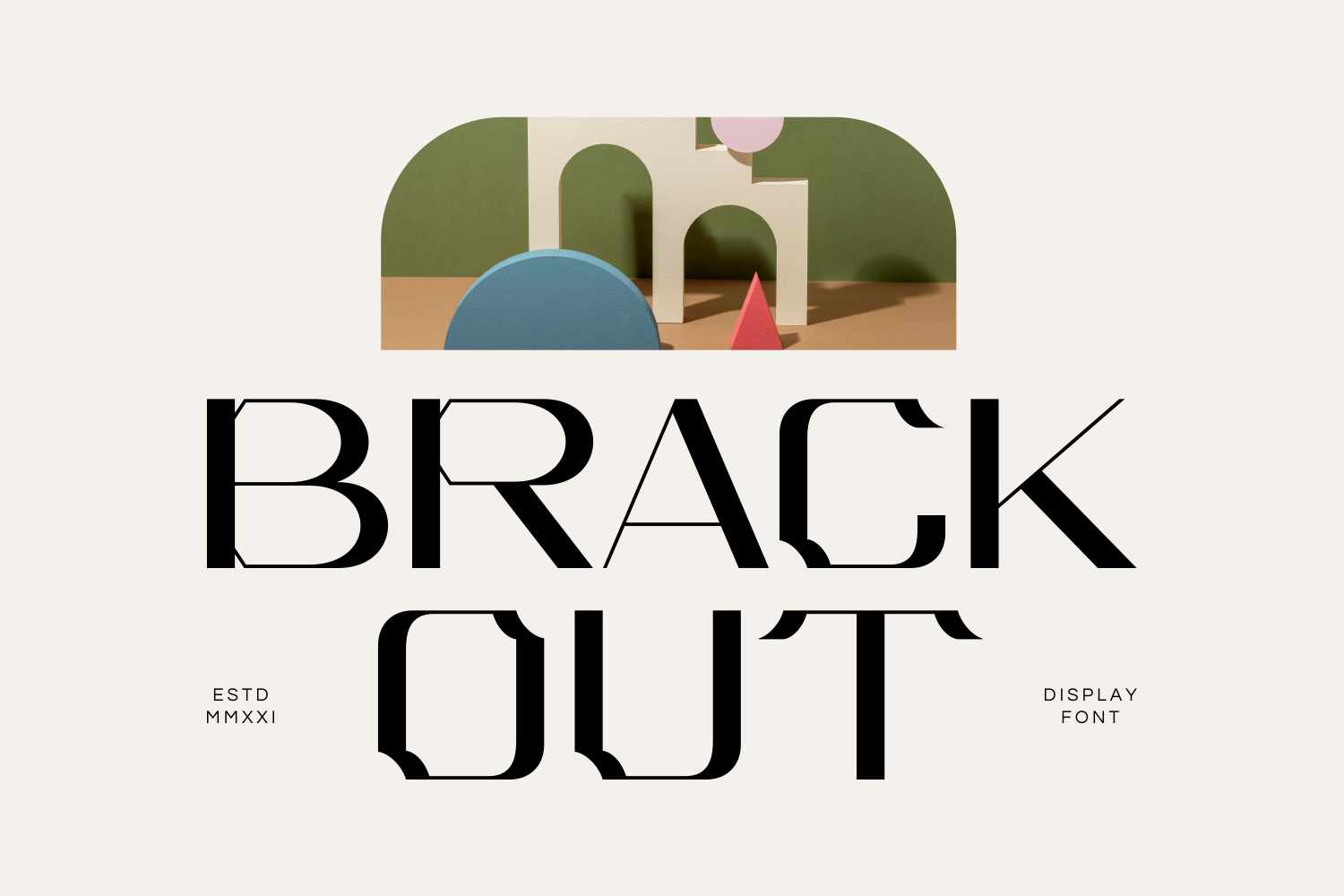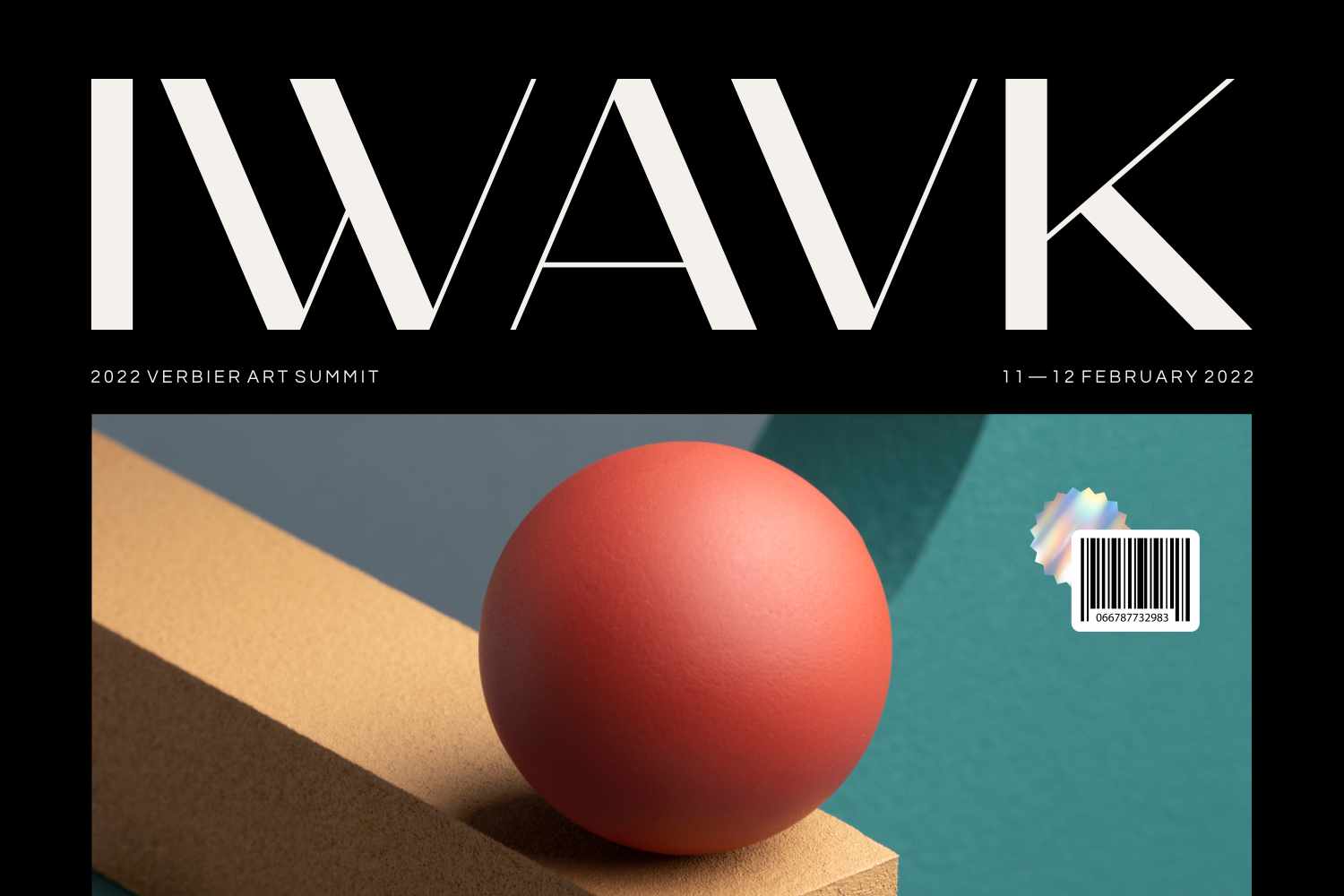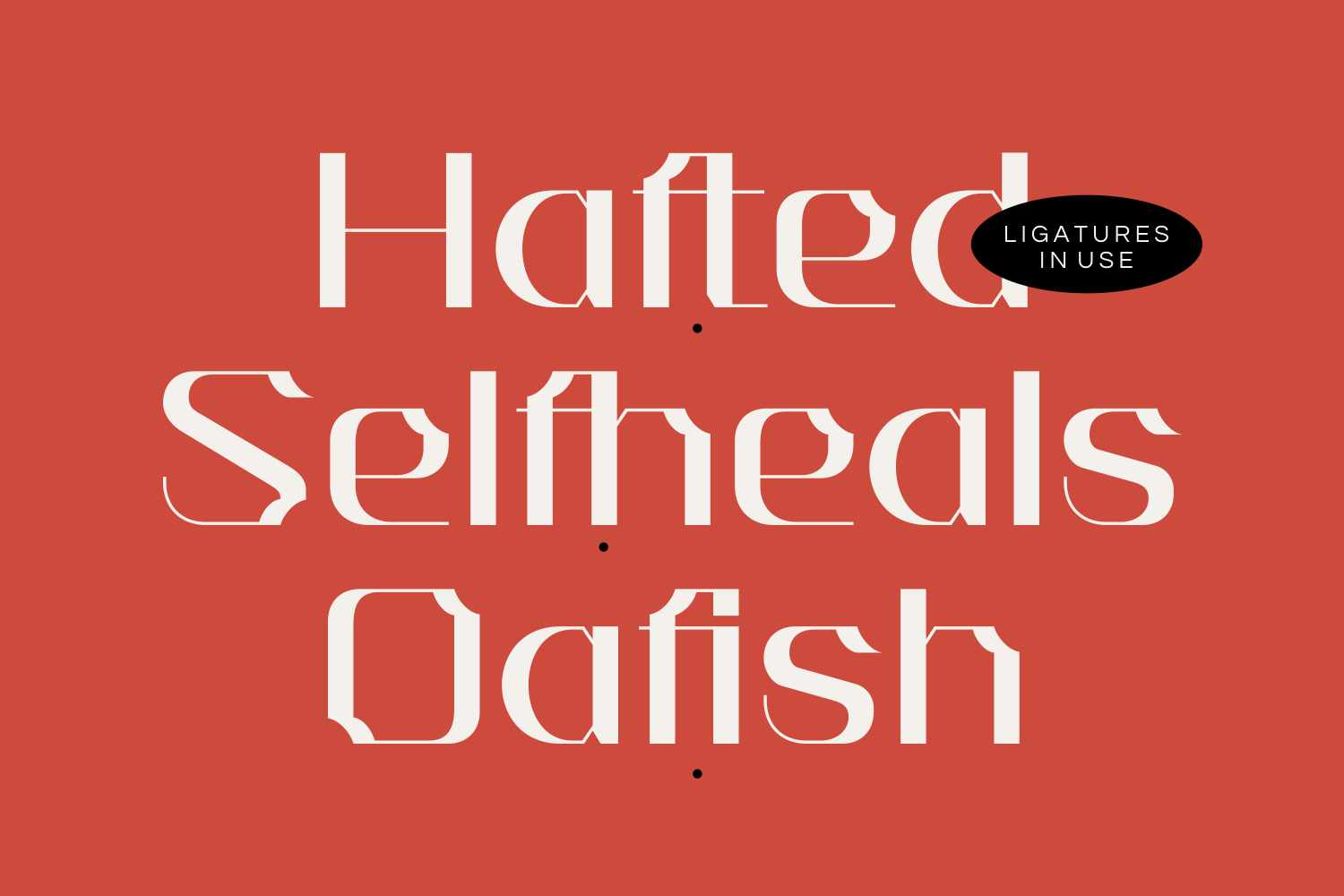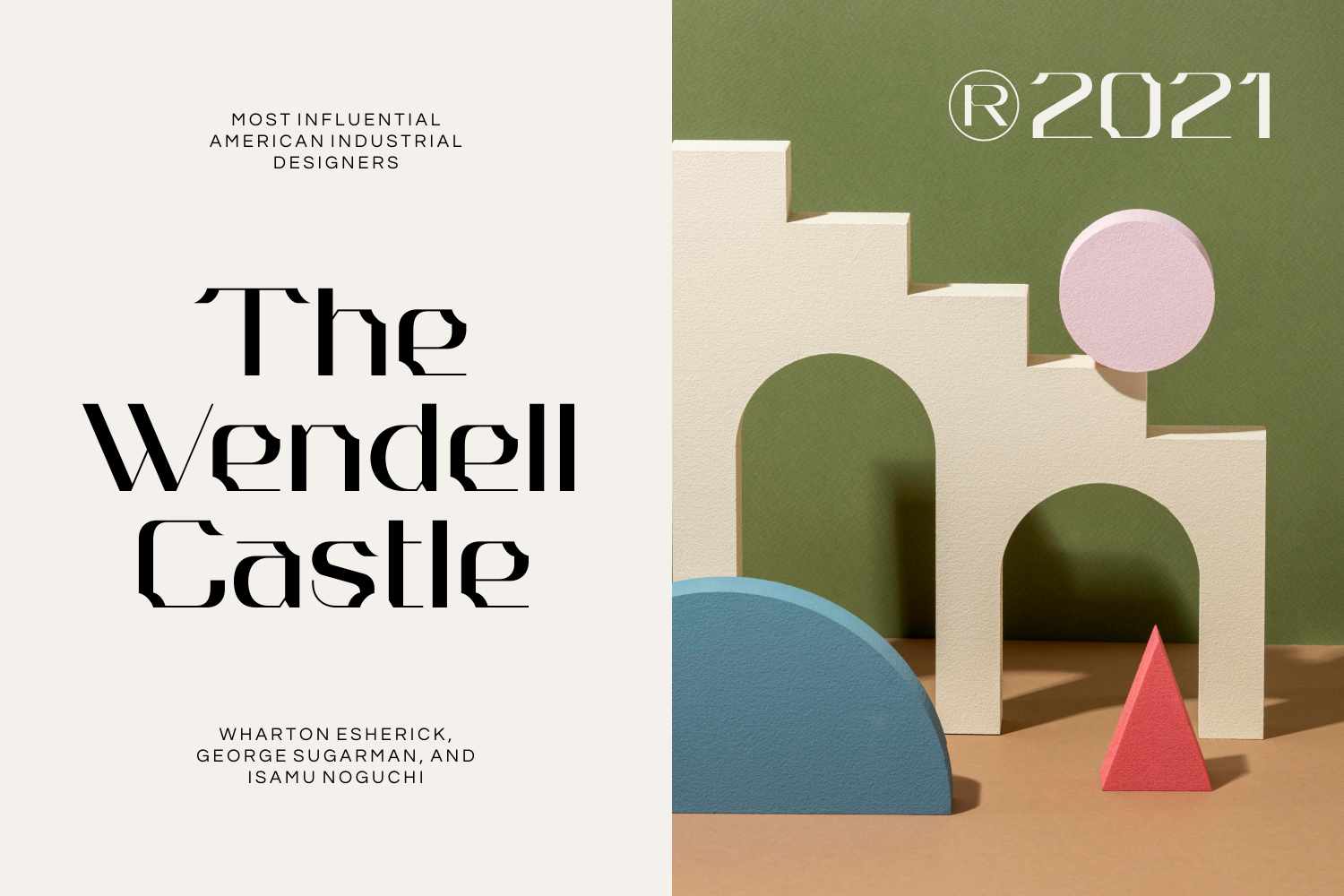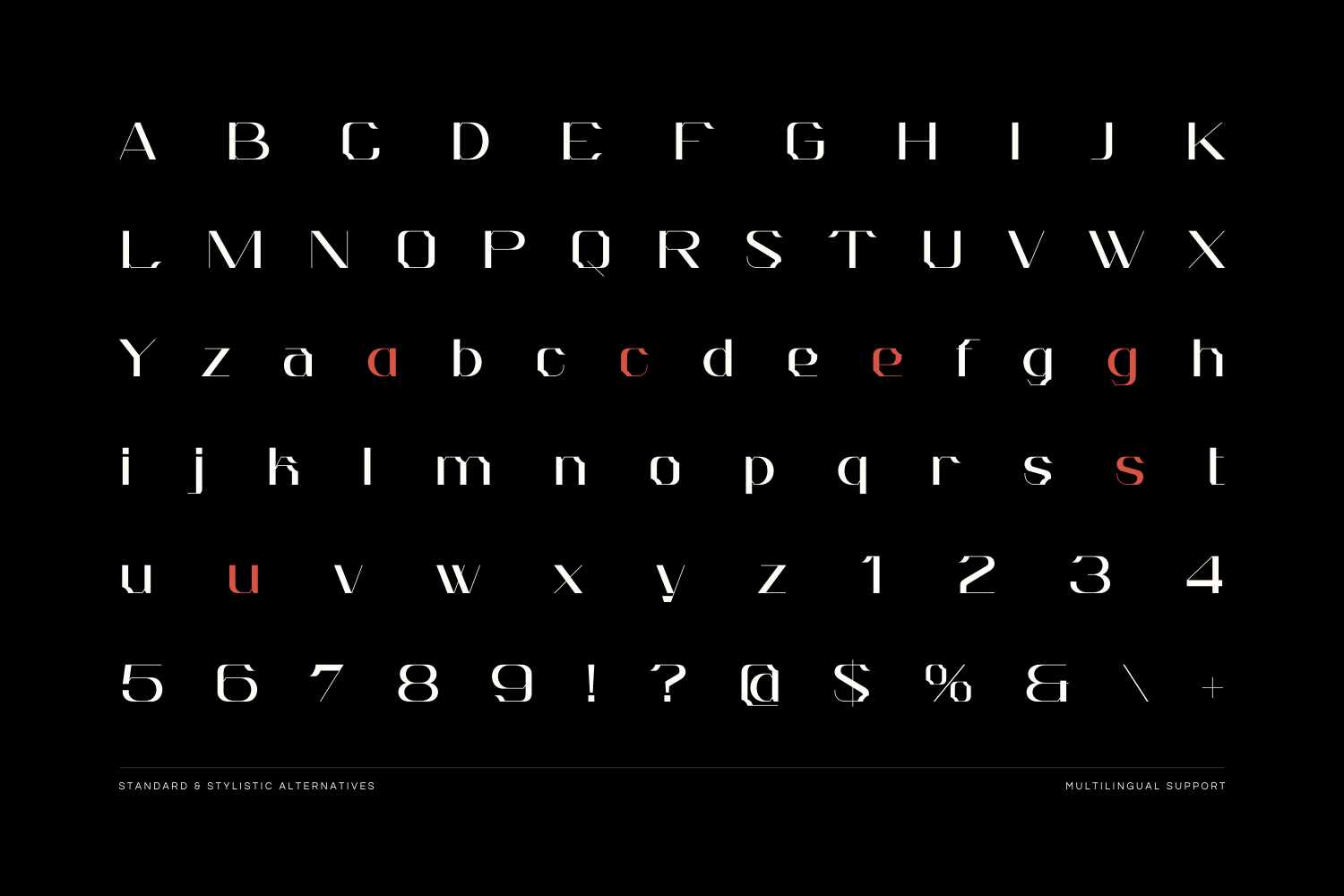
Brackout is a bold and experimental display font that breaks the mold of traditional typography. With its sharp geometric structure, unexpected cuts, and futuristic essence, it captures attention instantly. Each letterform is crafted with high contrast and unique detailing, making it ideal for editorial design, posters, album covers, or branding projects that require a powerful and artistic identity.
This typeface offers both uppercase and lowercase sets with stylistic alternates and ligatures that add flexibility and creativity to your compositions. Whether you’re designing for modern art exhibitions, digital products, or cutting-edge fashion labels, Brackout delivers a striking visual impact that stands out in any layout.
Brackout